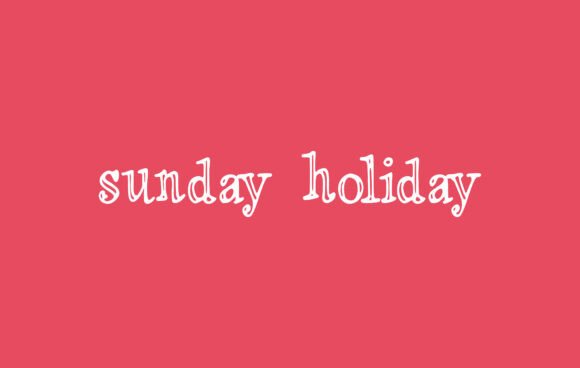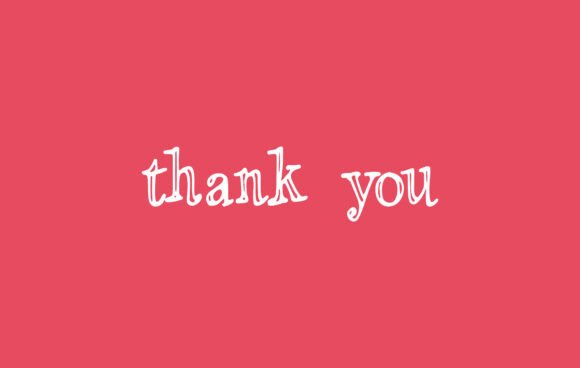
Ayden Font: Elevate Your Designs with a Romantic Handwritten Touch
Are you looking for a font that can add a touch of elegance and romance to your designs? Look no further than Ayden Font, an authentic handwritten font that is sure to become a true favorite among designers and crafters. With its unique blend of sophistication and playfulness, Ayden Font is the perfect choice for a wide range of design projects, from magazine headlines and social media graphics to branding, wedding invitations, and more.
The Characteristics of Ayden Font
Ayden Font is a carefully crafted handwritten font that boasts a romantic touch, making it perfect for designs that require a personal and emotional connection. Its authentic and natural feel sets it apart from other fonts, giving it a unique character that is both elegant and approachable. The font is highly legible, making it suitable for use as both title and body text, allowing you to maintain consistency throughout your design.
What Makes Ayden Font Stand Out
Ayden Font has several features that make it an exceptional choice for designers and crafters:
- Romantic and Elegant: Ayden Font’s romantic touch adds a touch of sophistication to any design, making it perfect for projects that require a high level of elegance.
- Highly Legible: The font’s clear and natural design ensures that it remains readable even at small sizes, making it ideal for body text and captions.
- Versatile: Ayden Font can be used for a wide range of design projects, from magazine headlines and social media graphics to branding, wedding invitations, and more.
Design Ideas with Ayden Font
Ayden Font’s versatility and elegance make it perfect for a variety of design projects. Here are some ideas to get you started:
- Magazine Headlines: Use Ayden Font to create eye-catching headlines that grab readers’ attention and add a touch of elegance to your magazine or blog.
- Social Media Graphics: Add a personal touch to your social media graphics with Ayden Font, making your posts stand out and engaging your audience.
- Branding: Use Ayden Font to create a unique and recognizable brand identity that sets you apart from the competition.
- Wedding Invitations: Add a touch of romance and elegance to your wedding invitations with Ayden Font, making them truly unforgettable.
- Cards and Stationery: Use Ayden Font to create beautiful and personalized cards and stationery that showcase your creativity and thoughtfulness.
Ayden Font is a beautiful and versatile handwritten font that is sure to become a favorite among designers and crafters. With its romantic touch, high legibility, and ease of use, Ayden Font is perfect for a wide range of design projects, from magazine headlines and social media graphics to branding, wedding invitations, and more. Whether you’re looking to add a touch of elegance to your designs or create a unique and recognizable brand identity, Ayden Font is the perfect choice.